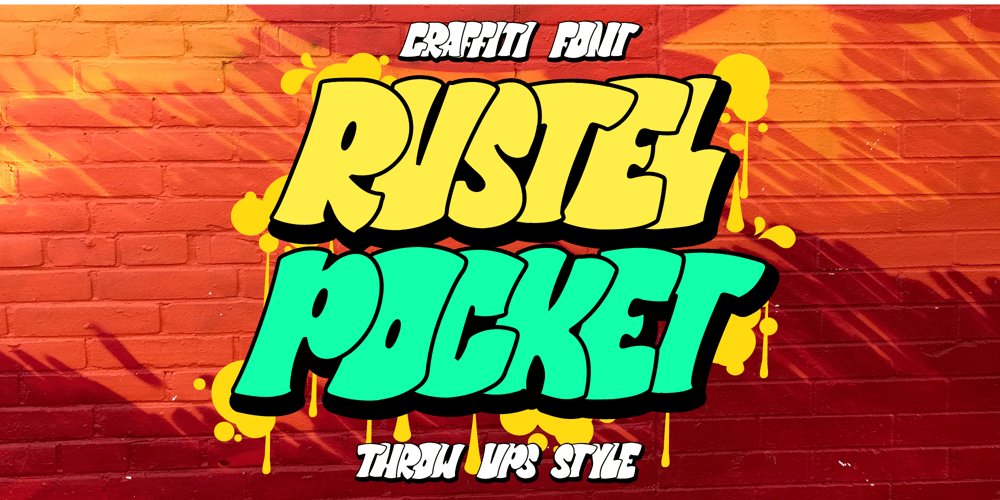
Rustel Pocket Font Family was designed by ryan creative and published by ryan creative. Rustel Pocket contains 4 styles and family package options. hello creatives Introducing the Rustel Pocket inspired by graffiti style with throw ups style which has a unique appearance with additional variations of extrude, line, regular and outline lines. accompanied by additional ornaments that you can customize your own style. can be applied like, t-shirt design, sticker, image style etc.See also a tutorial using this font here:https://www.youtube.com/watch?v=HCFBL3VMmd0FEATURE;-Uppercase.-Support Foreign, Numbers and Punctuation.-Regular, extrude, line, outline and ornament-Works on PC.-Simple installation.-Accessible in Adobe Illustrator, Adobe Photoshop. Adobe InDesign, it even works in Microsoft Word. -Fully accessible without additional design software.Rustel Pocket is coded with Unicode PUA, which allows full access to all additional characters without having to design any special software. Mac users can use the Font book, and Windows users can use the Character map to view and copy any extra characters to paste into your favorite text editor/app. Thank you for visiting ๐